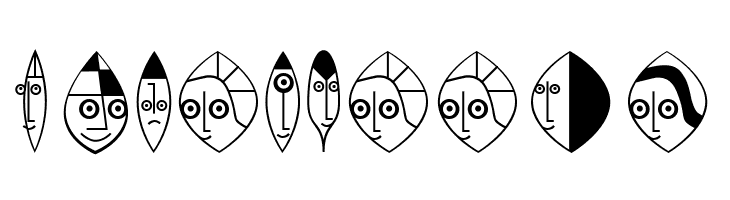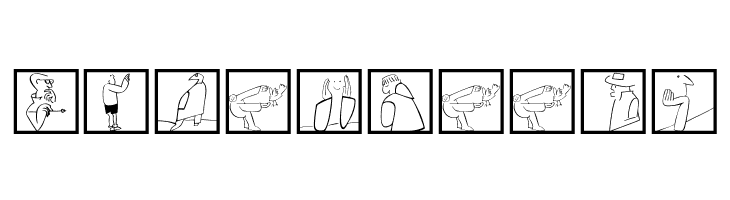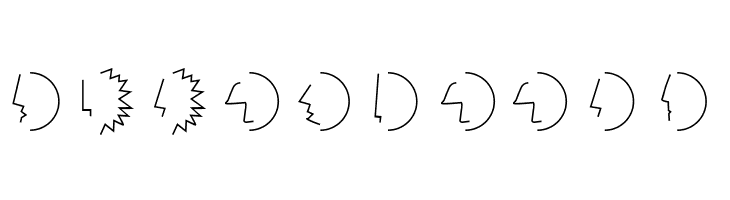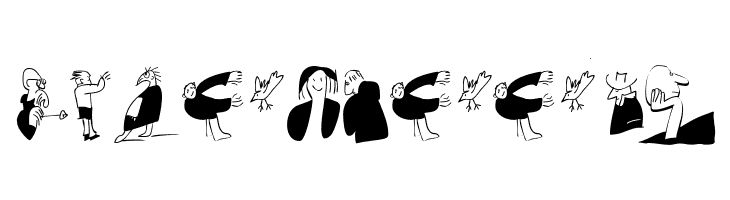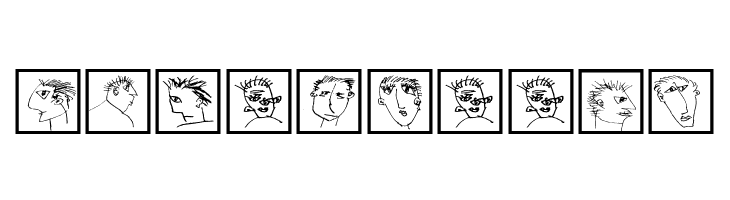
• HeadsAndHandsTwo
Cartoonish, illustrative font made of quirky character drawings.
• HeadsCallSketches
Hand-drawn, abstract font made of expressive face sketches.
• HeadsConstructed
Abstract, face-themed decorative font with geometric shapes.
• HeadsConstructedTwo
Playful, abstract stick-figure font with expressive faces.
• HeadsForYourAds
Whimsical illustrated font featuring diverse character heads and figures.
• HeadsGallery
Hand-drawn cartoon heads and figures in a playful, illustrative style.
• HeadsHandsSketches
Hand-drawn, abstract face sketches used as letterforms.
• HeadSketchesMK
Hand-drawn, sketchy font made of expressive head illustrations.
• HeadSketchesTwo
Hand-drawn font of quirky head sketches for each character.
• HeadsLogoTorsi
Abstract symbols resembling human profiles with minimalist design.